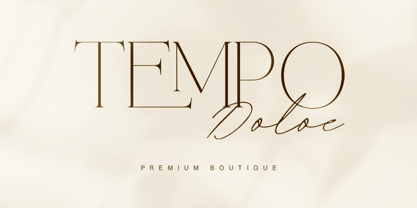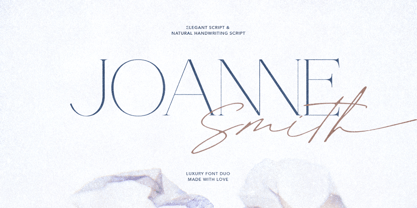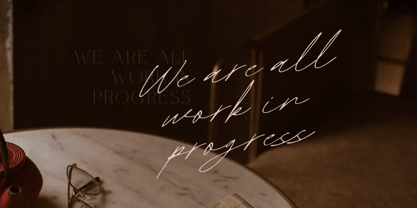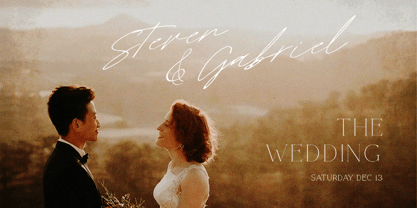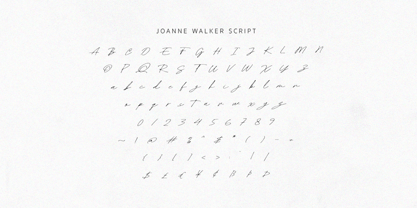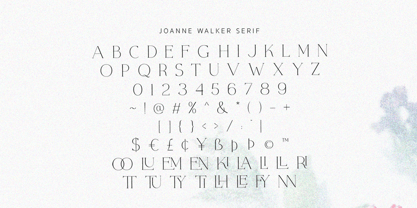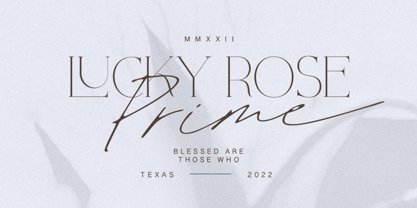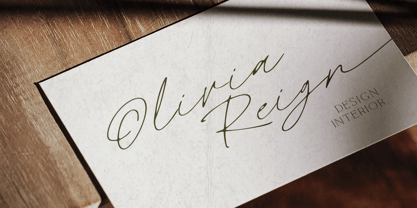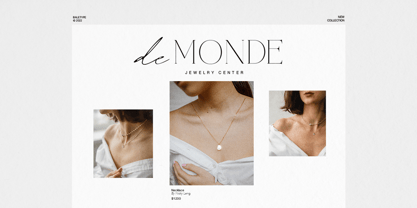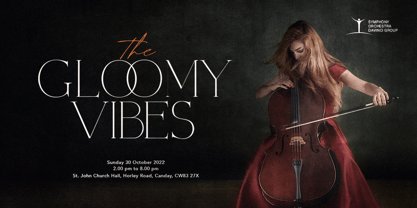
Joanne Smith
by Bale Type
The Joanne Smith Font Family was designed by Sarid Ezra, Dzikrul Aulia and published by Bale Type. Joanne Smith contains 2 styles and family package options. More about this family
Joanne Smith is a font duo that contains elegant serif and natural handwriting script. You can use this fonts for any purpose, such as branding, logo, and suitable for wedding invitations. Don't need to find the perfect match of the fonts for your new project, you can get two in this one pack. This font is versatile and stunning for timeless use. Joanne Smith also support multilingual!
Designers: Sarid Ezra, Dzikrul Aulia
Foundry: Bale Type